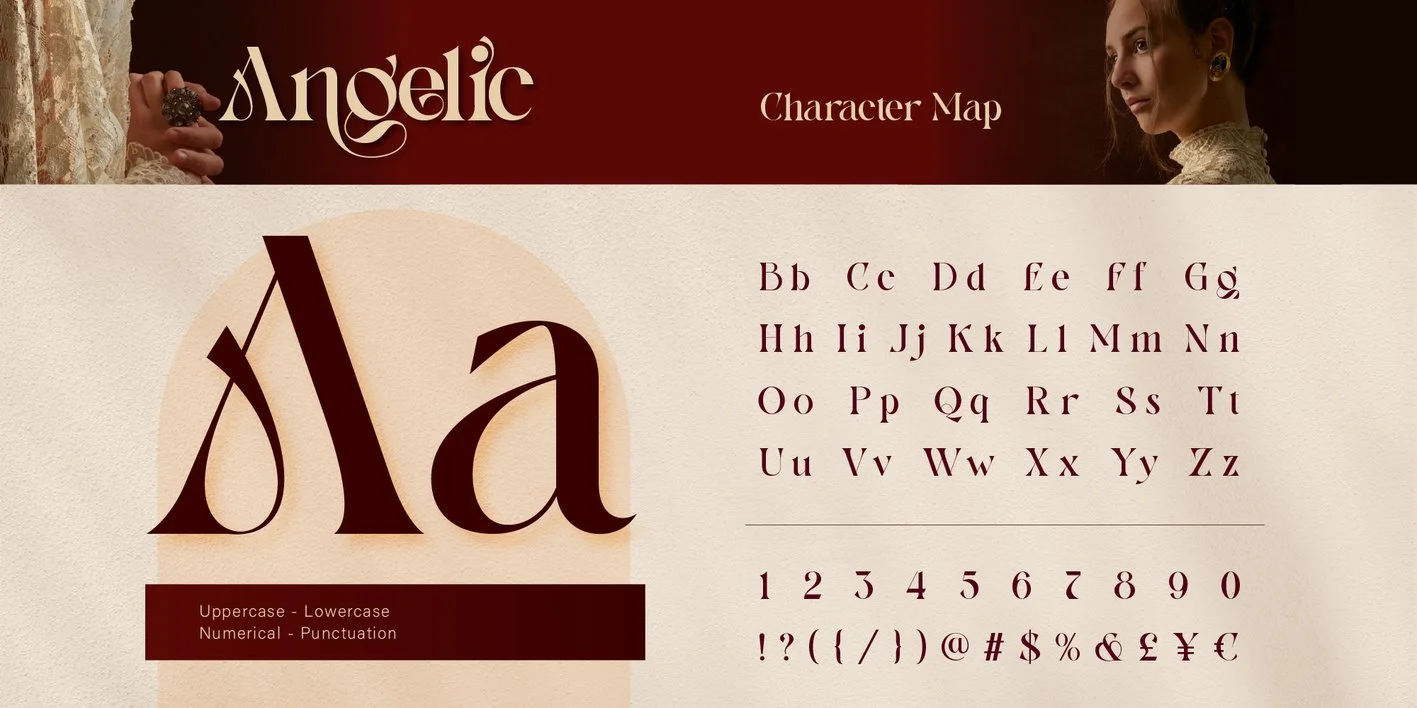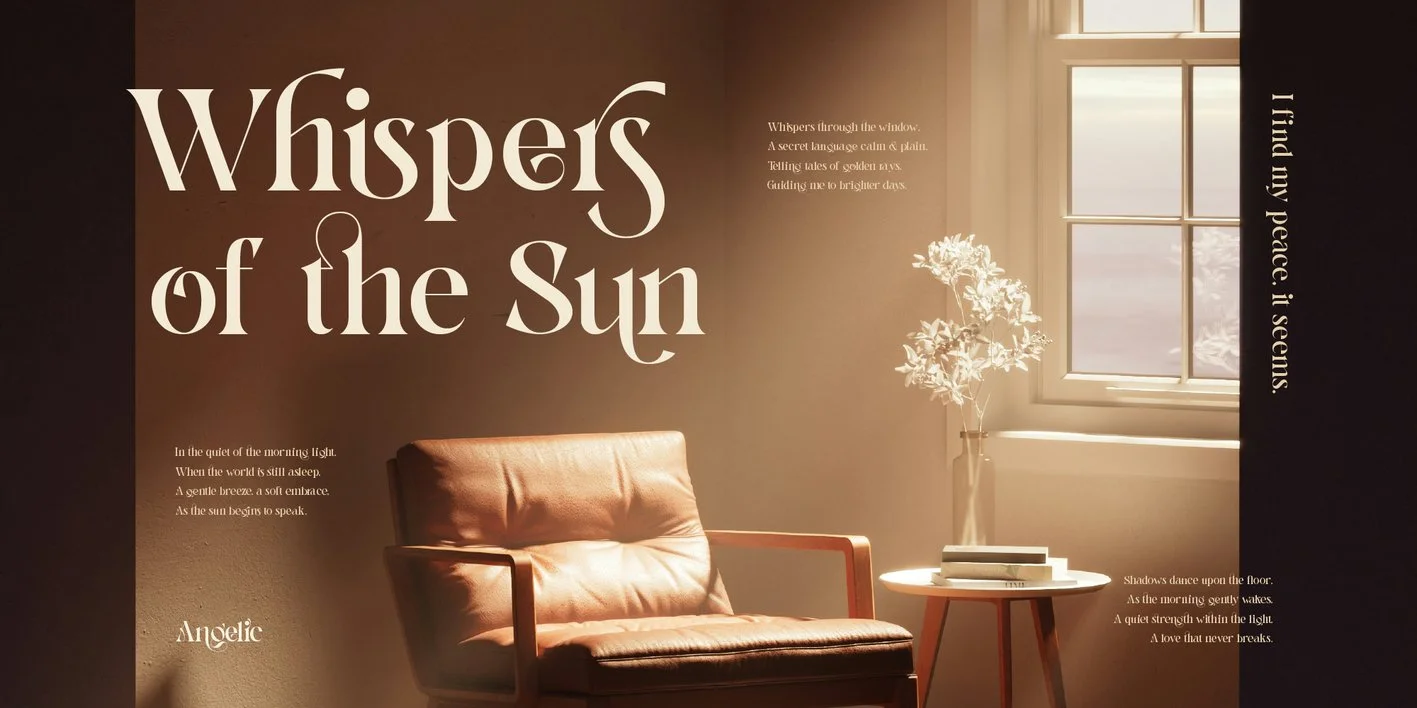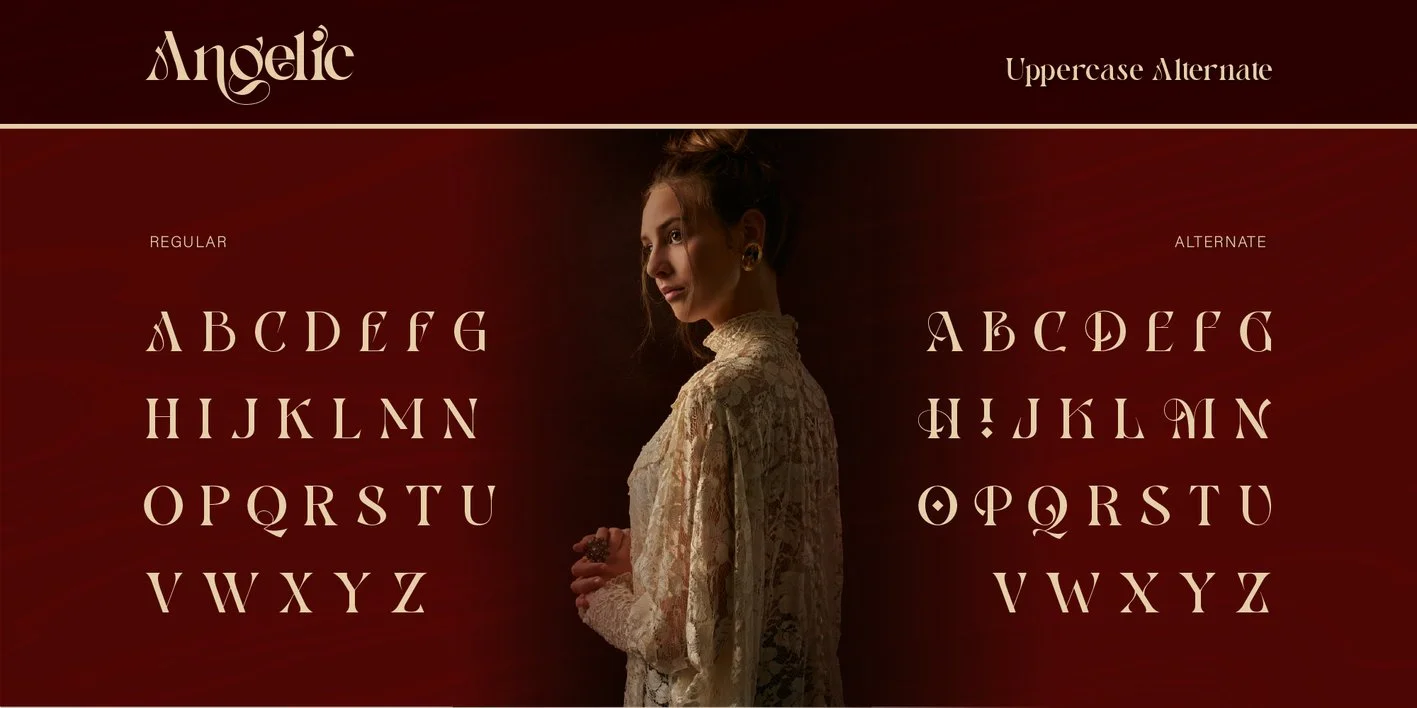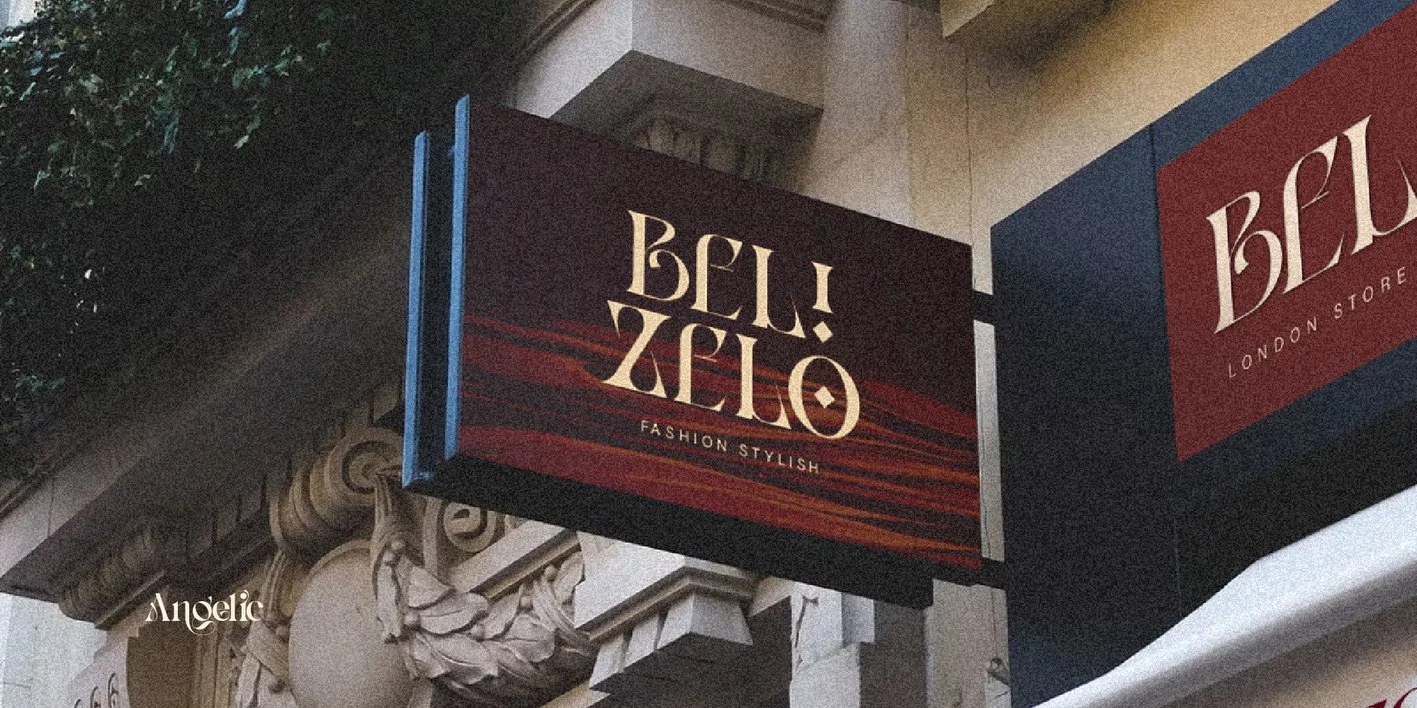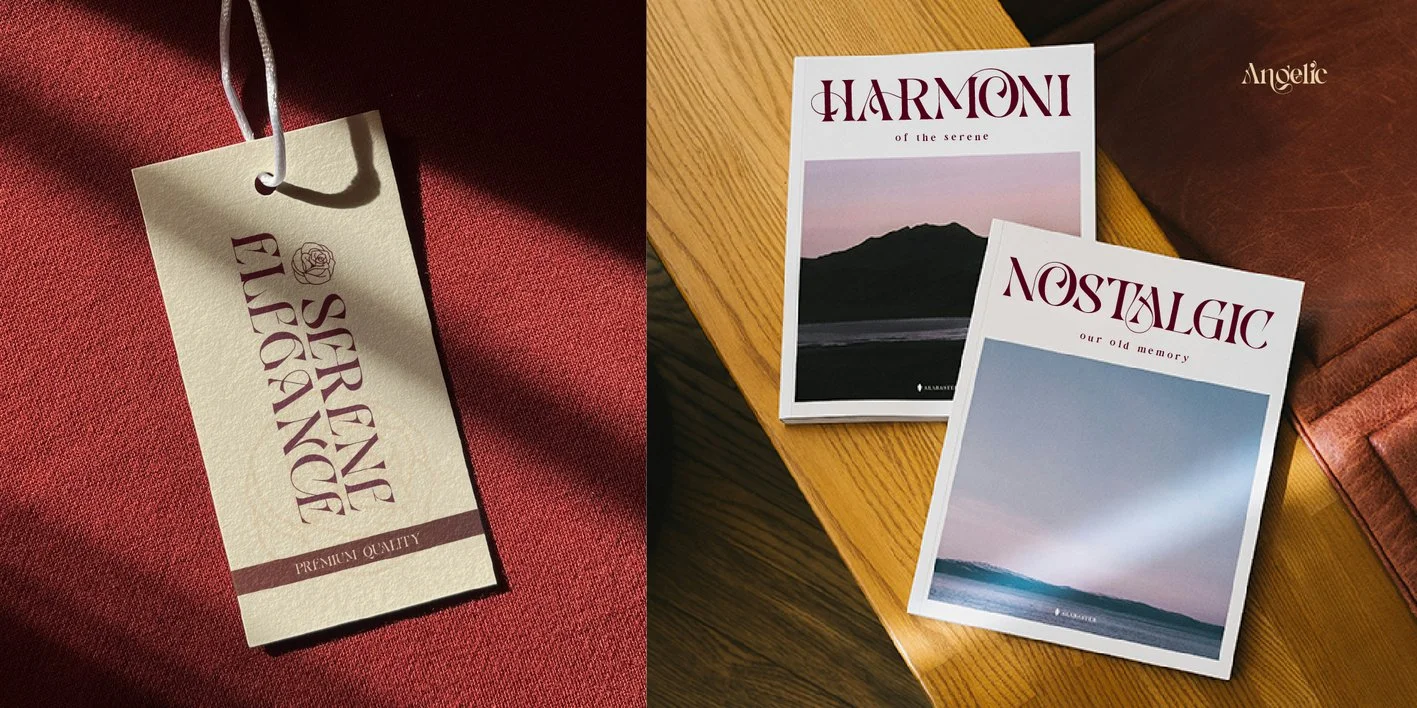
Angelic Font
Typography shapes perception at a subconscious level. Angelic leverages versatility across print and screen contexts to make every composition feel considered. The typeface brings a versatile sensibility to a broad range of creative disciplines, with optical balance across all weights that holds up whether the work is print-first or screen-first.
In practice, Angelic proves particularly effective for annual reports, editorial layouts, logo design, social media graphics, product labels. Designers reaching for it find that the type decisions feel resolved rather than laboured — a useful quality when client timelines are tight.
The range of applications extends to web design, signage systems, poster creation, advertising campaigns. That breadth is deliberate: the proportions and spacing were stress-tested across a wide range of mock briefs before the typeface was finalised.
The consistent rhythm of Angelic across a full paragraph creates the kind of even grey value that makes extended reading comfortable, a detail that matters more in long-form content than its subtlety might suggest.
Art directors commissioning type-led campaigns find Angelic a reliable choice for projects that demand both personality and restraint. The design avoids the self-conscious quirkiness that dates quickly, settling instead for considered distinctiveness that holds up over time.